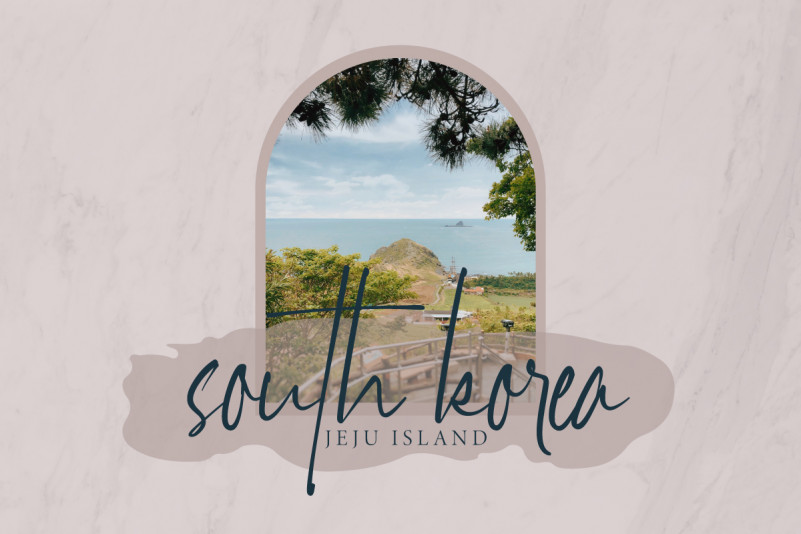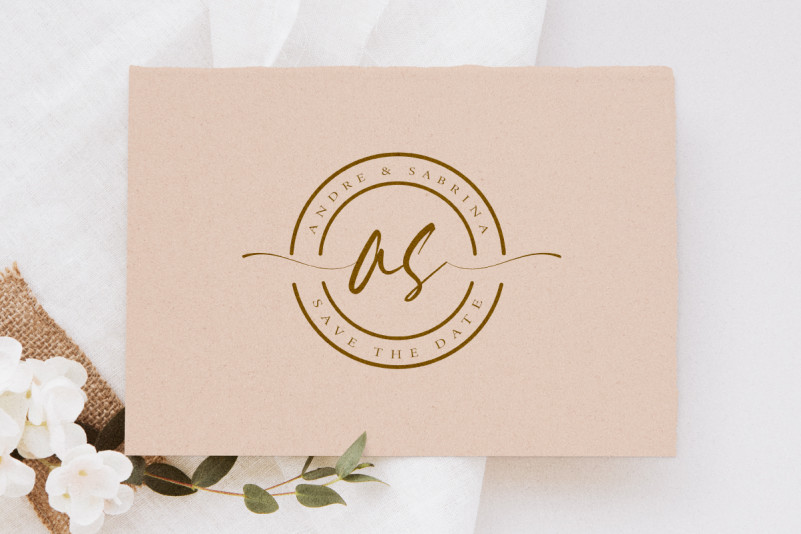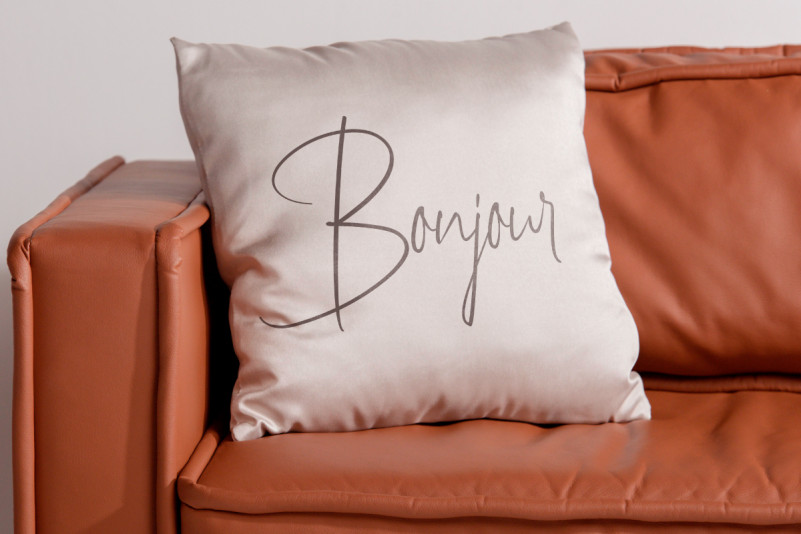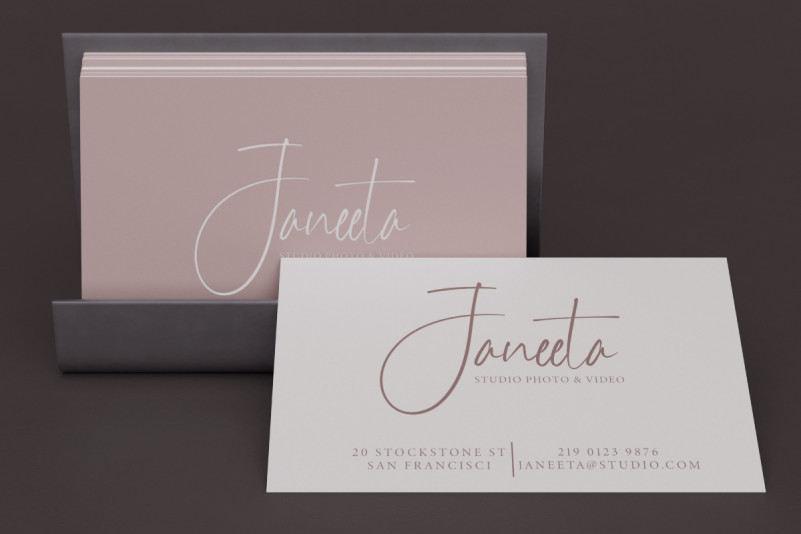
Dothan Font
Dothan Handwritten Font
This font will be great for any of your special projects including : professional, weddings, promotion, events, branding, advertising, magazine, shopping, signage, invitation, stationery, social media posts, product packaging, product designs, label, photography, watermark or and any projects that need handwriting style. Dothan Font includes full set of gorgeous uppercase and lowercase letters, numerals, a large range of punctuation and ligatures. We made it looks simple yet stunning handwritten looks, giving realistic pen style.